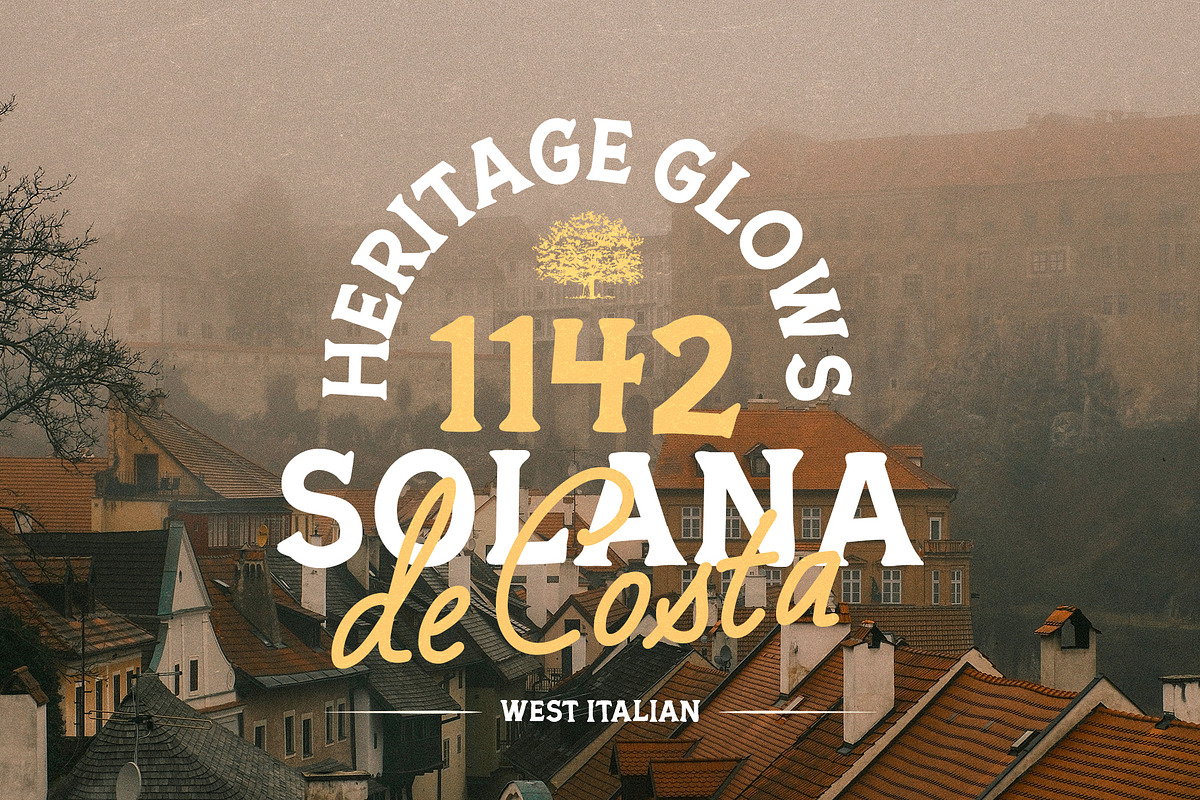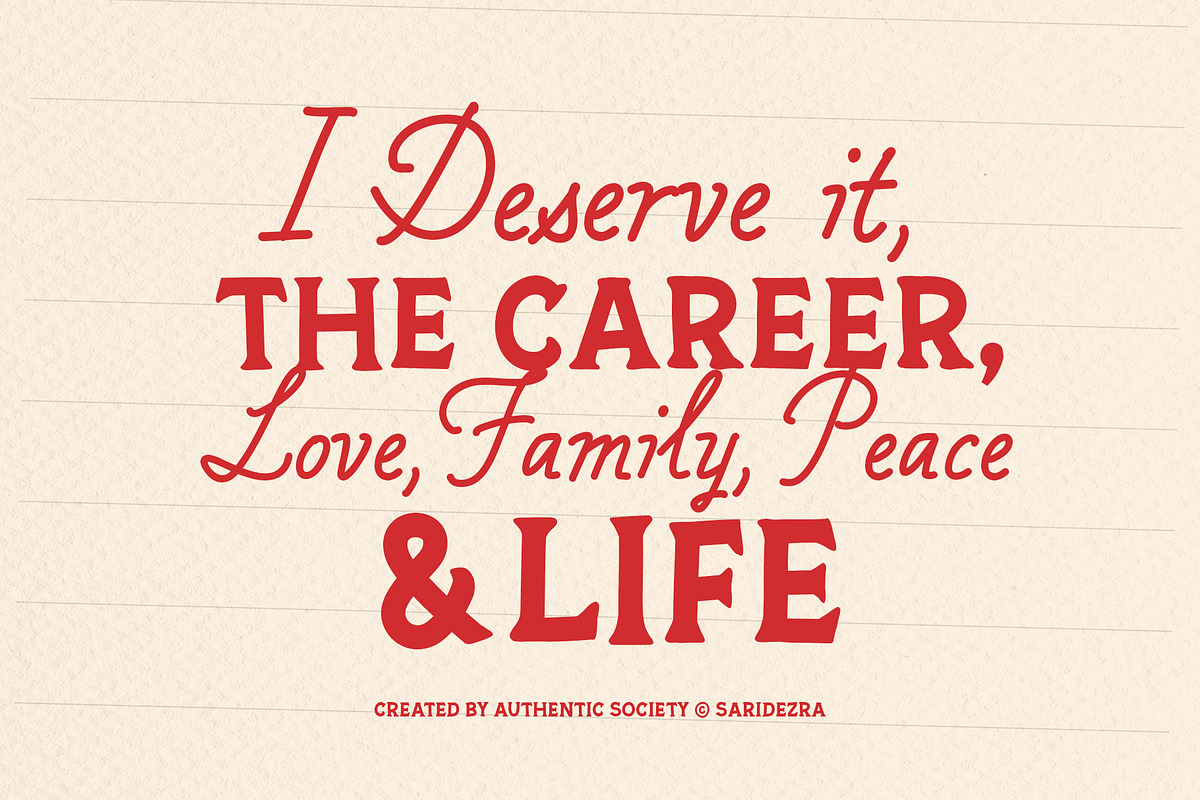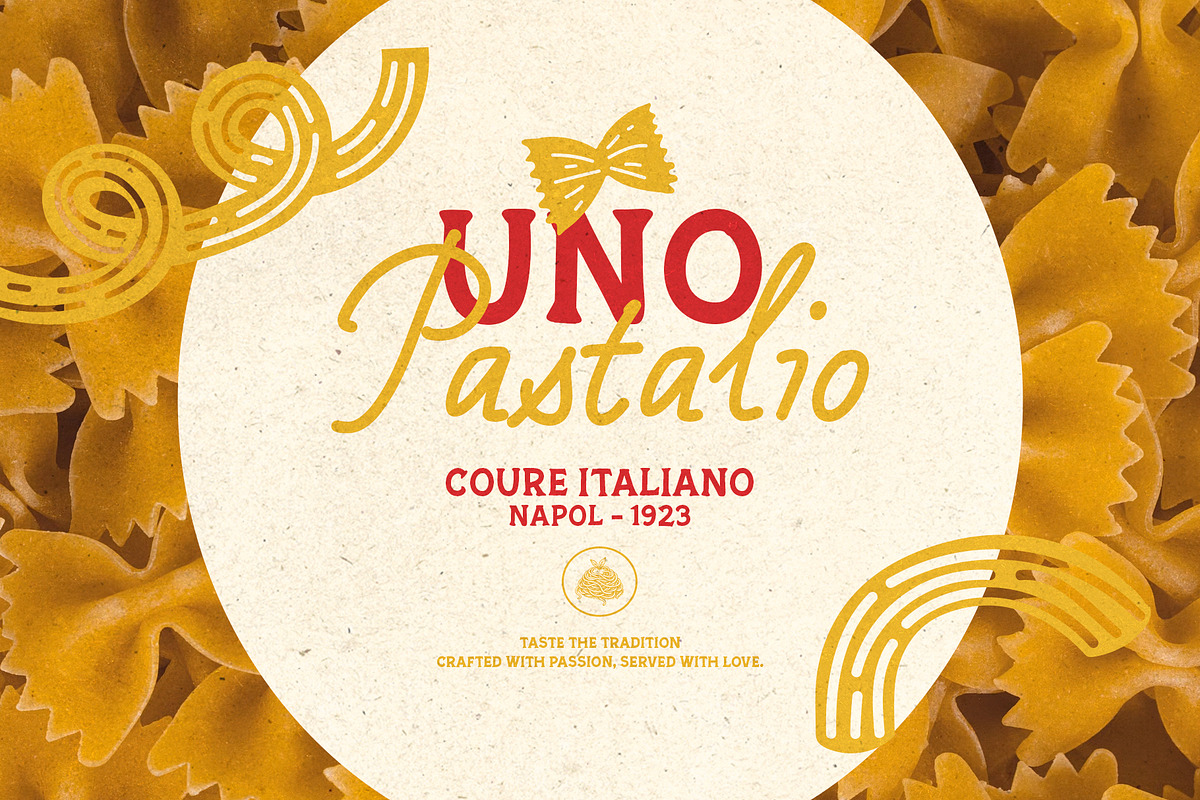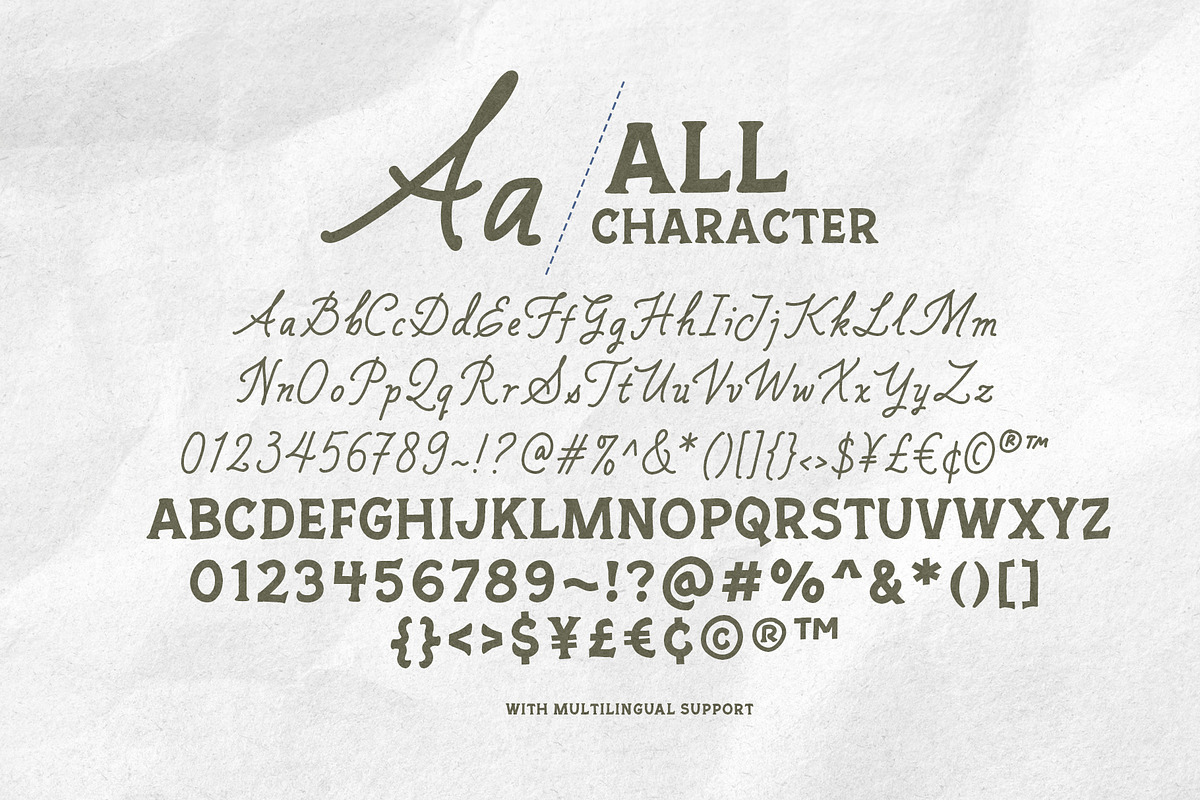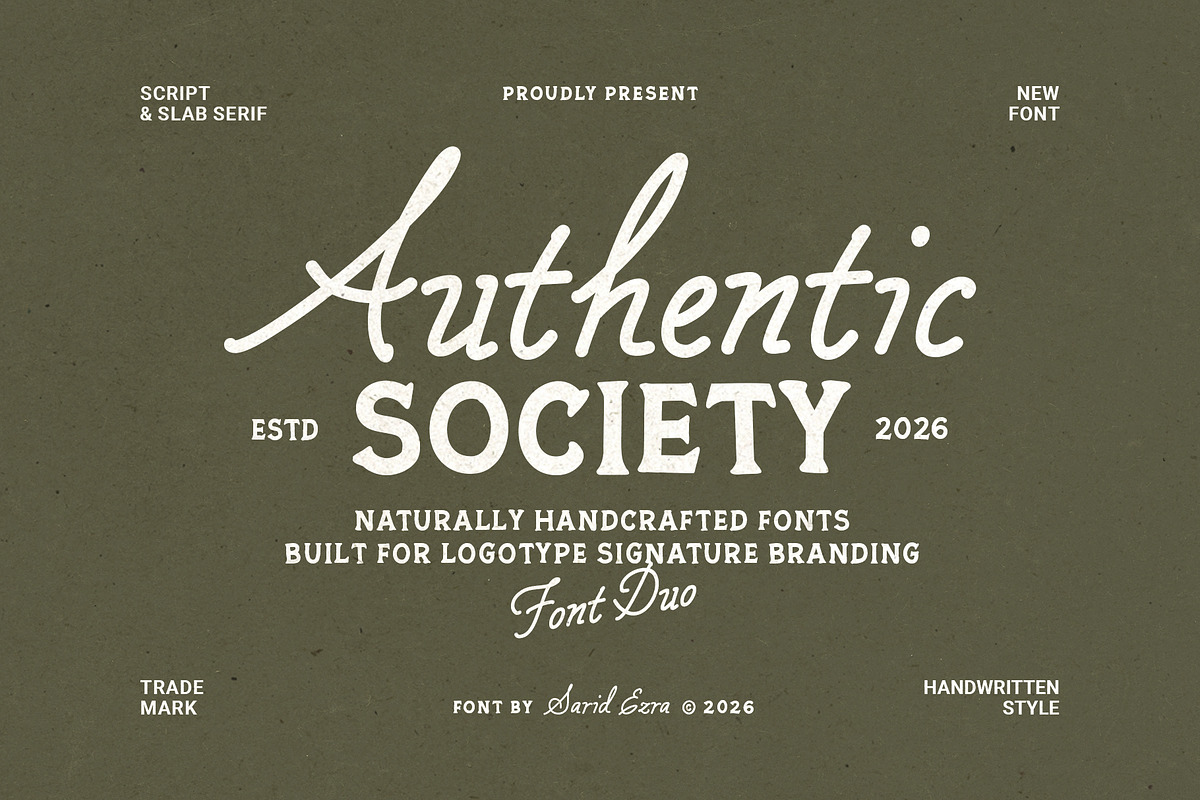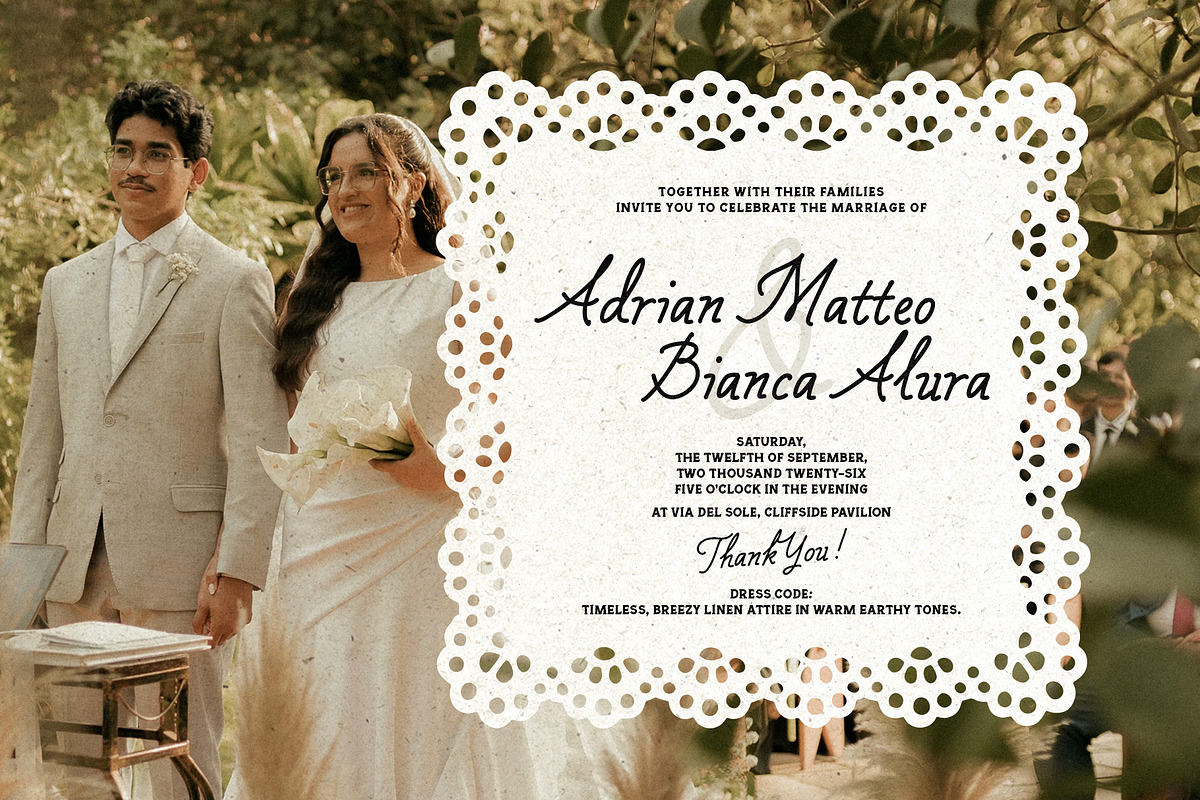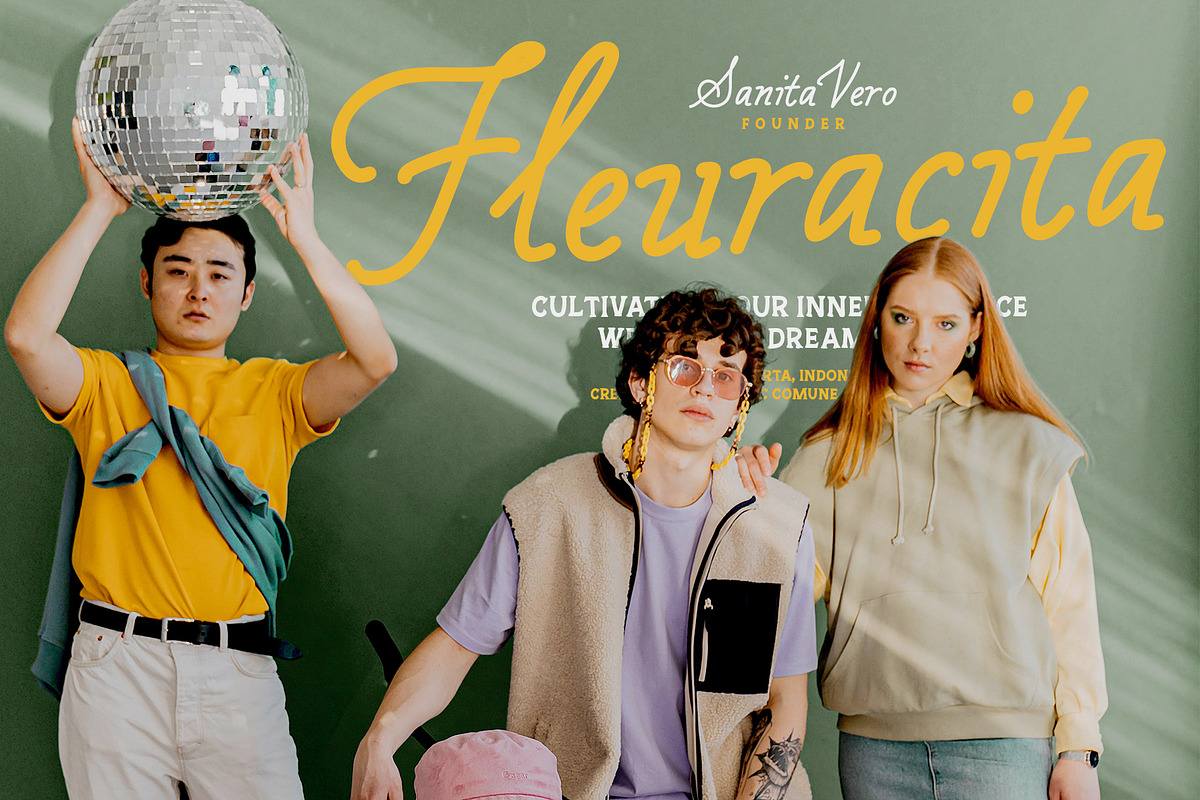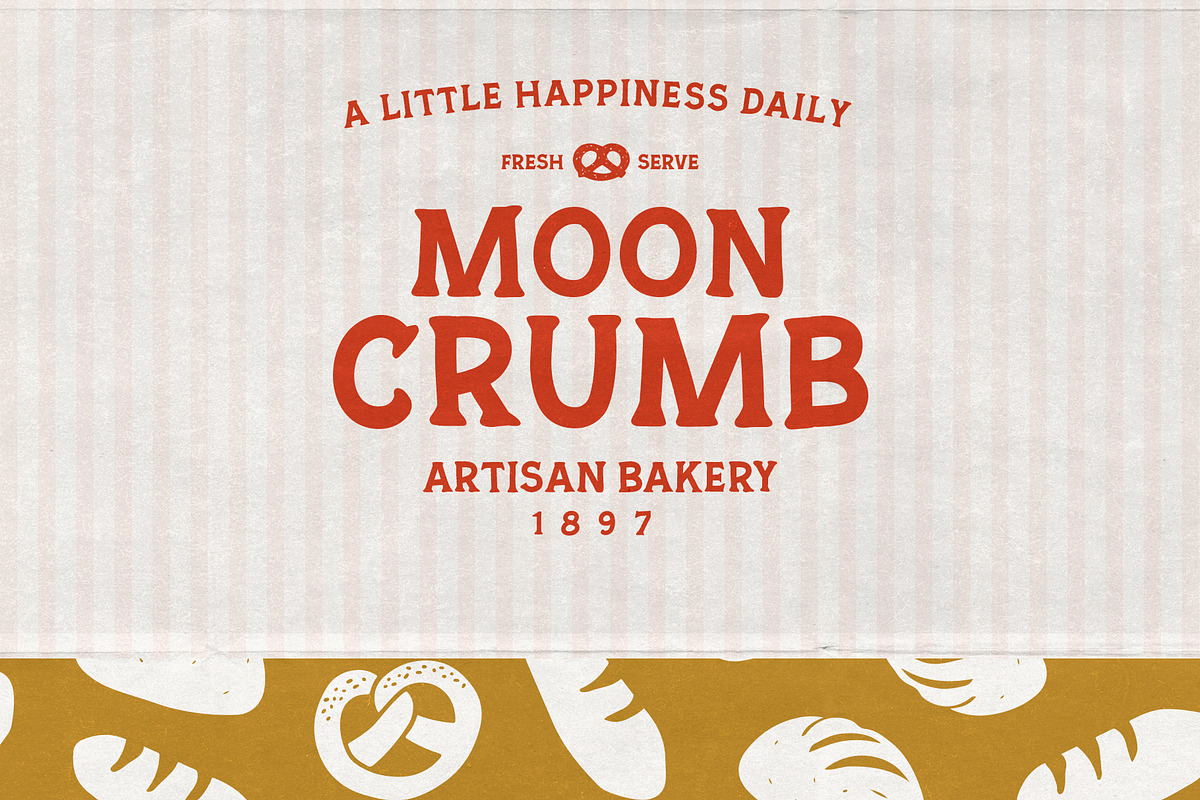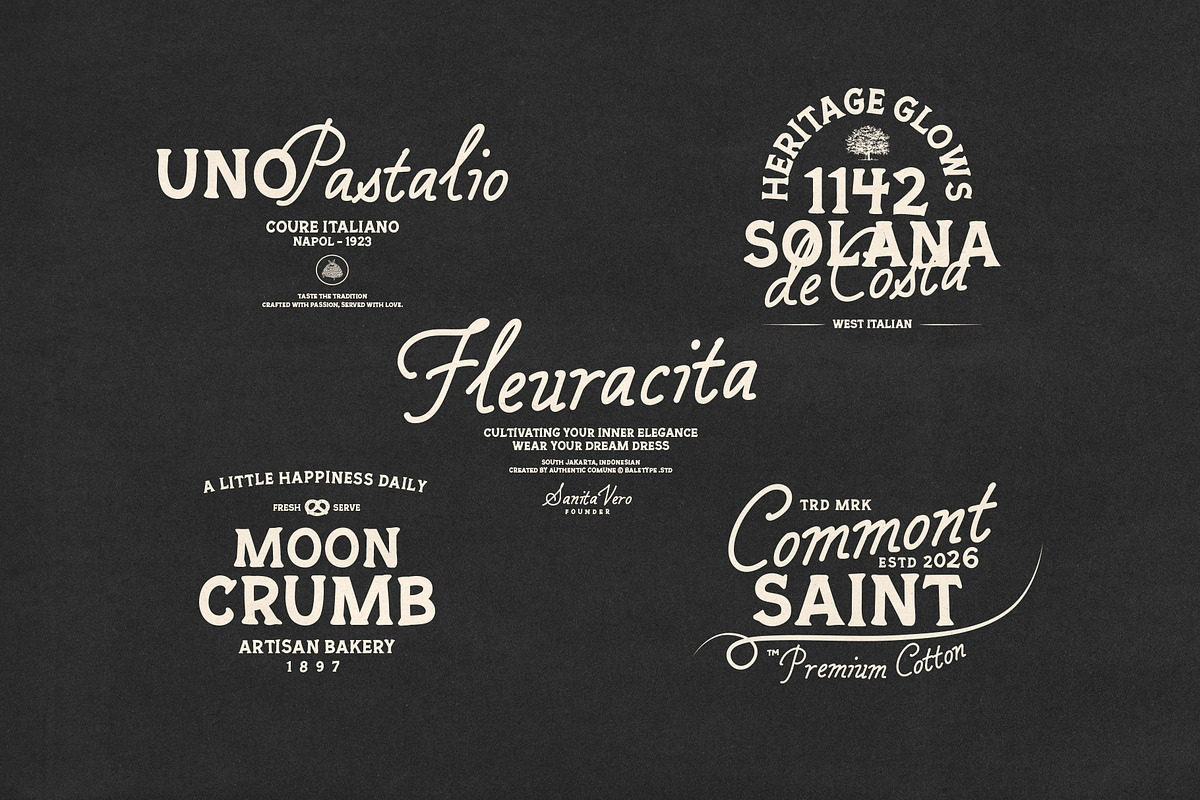
Authentic Society - Font Duo
Authentic Society is a handmade font duo for logotype. Including slab serif with handwritten monoline script, you can use this font for any purposes such as branding, logo, quotes, or wedding invitations. With natural vibe, this font will make your project looks more handcrafted. This font duo also support multi language.